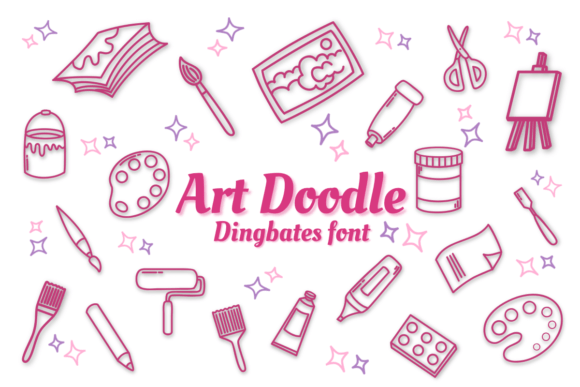
The Ultimate Guide to Art Doodle Font: Unleashing Creativity in Your Designs
I’ll never forget the time I was working on a project for a local art studio, and they asked me to create a fun, playful logo that captured the essence of their creative space. As I scrolled through my font library, I stumbled upon the Art Doodle font, and it was love at first sight! β¨ The font’s quirky, hand-drawn illustrations and doodles instantly resonated with the studio’s artistic vibe. In this article, I’ll share my experience with Art Doodle, its features, and how to make the most of it in your designs.
What is Art Doodle Font?
Art Doodle is a fun and creative font that includes small pictures and drawings instead of regular letters and numbers. These little images, called dingbats, feature various art-related items like paintbrushes, palettes, and easels. Itβs perfect for adding a playful and artistic touch to your projects!
- β¨ Unique and creative illustrations that add a personal touch to designs
- β Easy to use and navigate, even for beginners
- π¨ Perfect for art-related projects, but also versatile enough for other creative endeavors
- π€ Limited character set, which may not be suitable for lengthy text
- β οΈ May not be the best choice for formal or professional designs
The Art Doodle font was created by a team of designers who wanted to bring a playful and creative touch to typography. Inspired by the world of art and illustration, they crafted a font that would allow designers to add a personal touch to their projects. The font’s quirky illustrations and doodles are meant to evoke a sense of creativity and imagination.
| Font Name | Art Doodle Font |
| Author | Chonada |
| What is the Art Doodle font best used for? | The Art Doodle font is perfect for art-related projects, such as logos, posters, and social media graphics. It’s also great for creative endeavors like invitations, greeting cards, and crafts. |